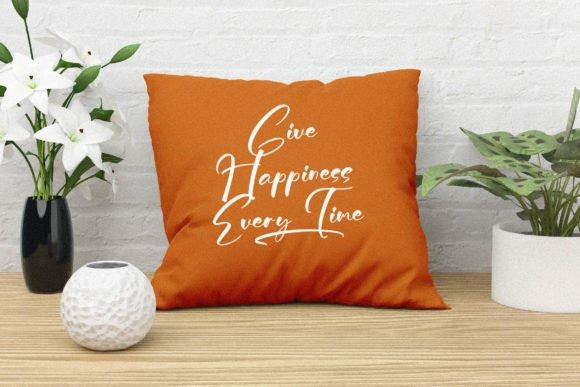
Klasttic Rolesta Font
Klasttic Rolesta – Modern Handwritten Script Font, from Glorytype Studio, suitable for any projects such as: logos, branding projects, homeware designs, product packaging, mugs, quotes, posters, shopping bags, t-shirts, book covers, name card, invitation cards, greeting cards, label, photography, watermark, special events, and all your other lovely projects that need a beautiful script taste.